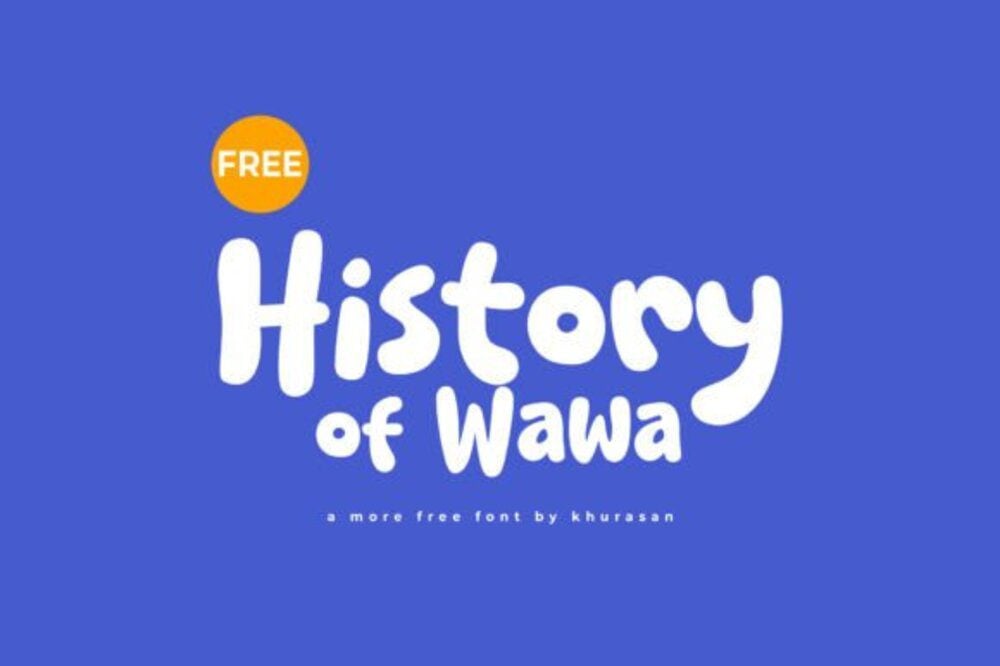
History of Wawa Font
Wawa Font is a timeless typeface inspired by the fusion of classic and contemporary design principles. Born out of a desire to blend vintage charm with modern versatility, it features elegant curves and refined details. Ideal for branding, headlines, and editorial use, Wawa Font’s rich history and adaptability make it a staple for creating memorable and sophisticated designs.